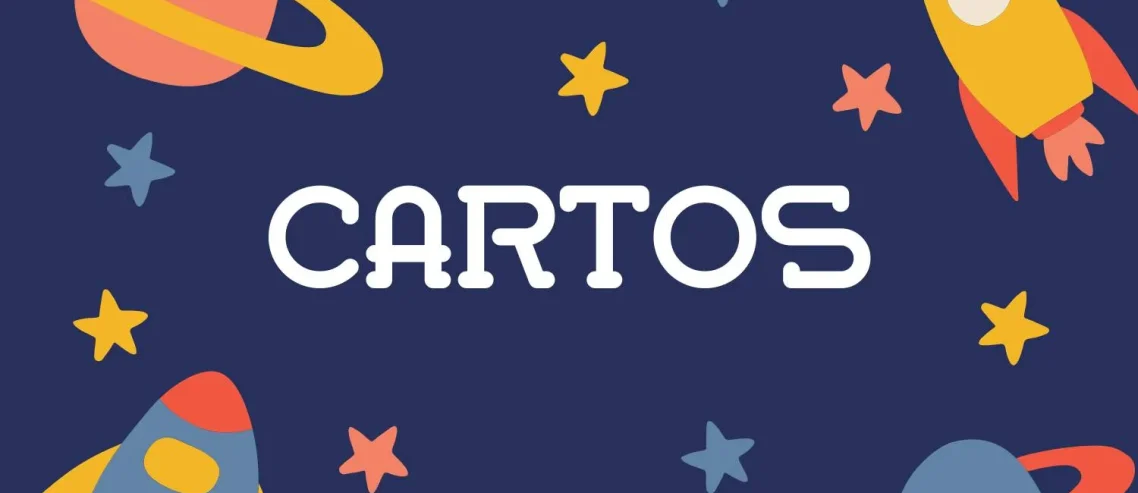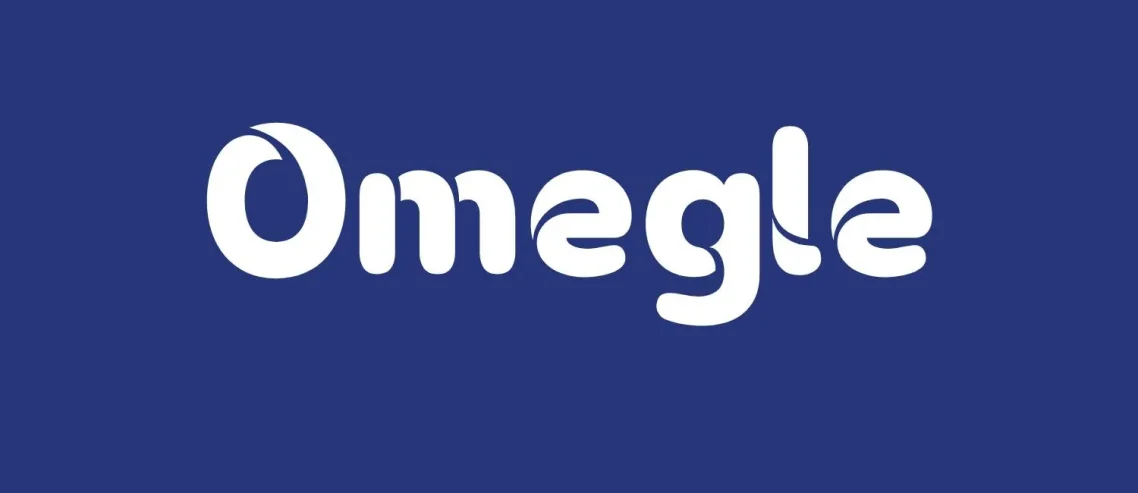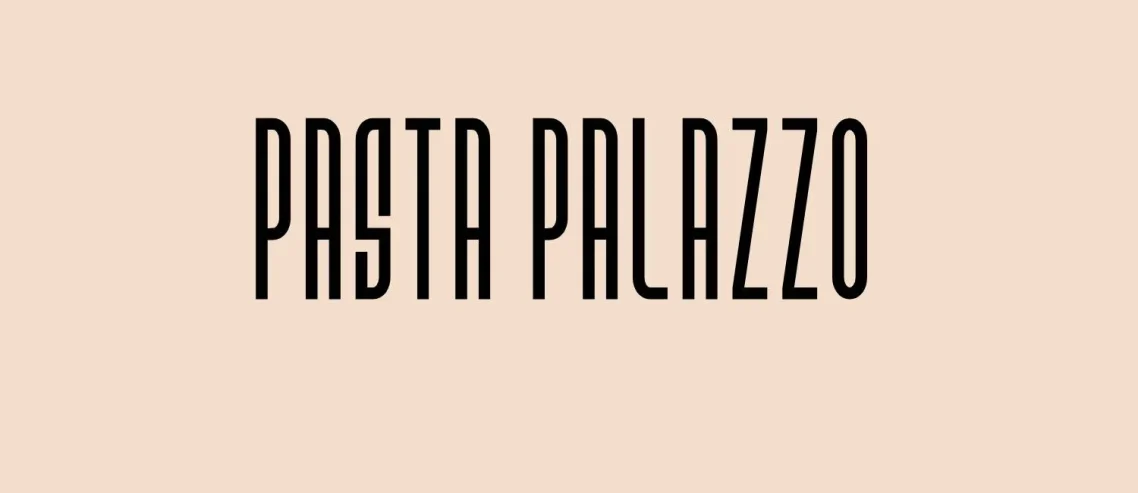
Cartos Font Free Download
The geometrical shape of the Cartos Font is the reason for its fame. The characters of this typeface are inspired by the fancy font family and the Sans Serif font family. This unique font is designed by a Tokokoo studio foundry. The Magnificent look of the characters can easily be paired with care bears font. …
Lucida Handwriting Font Free Download
Lucida Handwriting Font is a script typeface designed by Charles Bigelow and Kris Holmes in 1993. The design of Lucida Handwriting was inspired by the freeform handwriting of elementary school children. Lucida Handwriting features short ascenders and descenders, and unconventional slanted character forms. If you need a more stylish look to your modern designs then …
Omegle Font Free Download
Omegle font was designed by 177Studio by focusing on the trendy and bold appearance of characters. This typeface has unique characters that are helpful to boost your design projects. You can utilize this stunning font for banner design, poster design, flyers, and logo design projects. You can utilize this superb typeface in combination with various …
Chicago Police Font Free Download
Chicago Police Font is a typeface that was designed for the Chicago Police Department. The font was created by Andrew Loomis, who was also the creator of the popular sans-serif typefaces. The Font has been used by the police department for over 50 years, and it is still in use today. You can also utilize the …
Pasta Palazzo Font Free Download
Pasta Palazzo Font is a unique typeface that was developed by the love and hard work of Mike Brando. This magnificent typeface was published in 2010 then in 2011 the updated version of this typeface was released. You can utilize this typeface in various projects and assignments to grab the attention of the viewer. It …
Slant Font Free Download
Slant Font is a typeface that was designed in the early 1980s. It is characterized by its slanted letters, which give it a unique look. The Font was created by designers at the International Typeface Corporation. Moreover, you can also try waltography font for your logos and other typography designs as well. Font Family Slant …